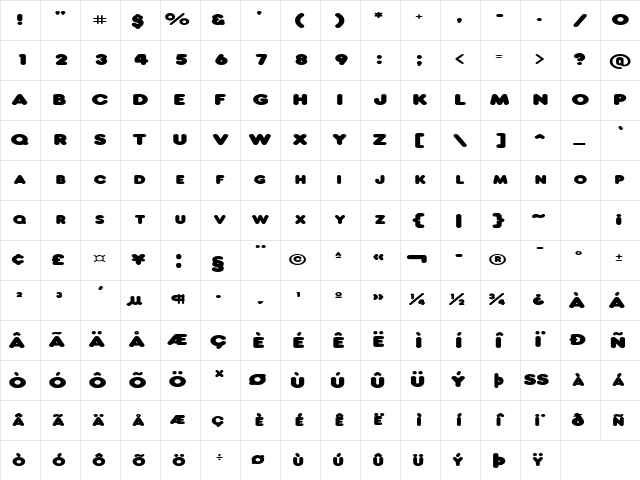
Design Context for NeonExtended
NeonExtended has a distinctly futuristic character, with geometric precision and clean angles that feel at home in technology, gaming, and sci-fi contexts.
Pro Tip: Try NeonExtended with generous letter-spacing in UI labels and navigation - the geometric forms benefit from room to breathe.